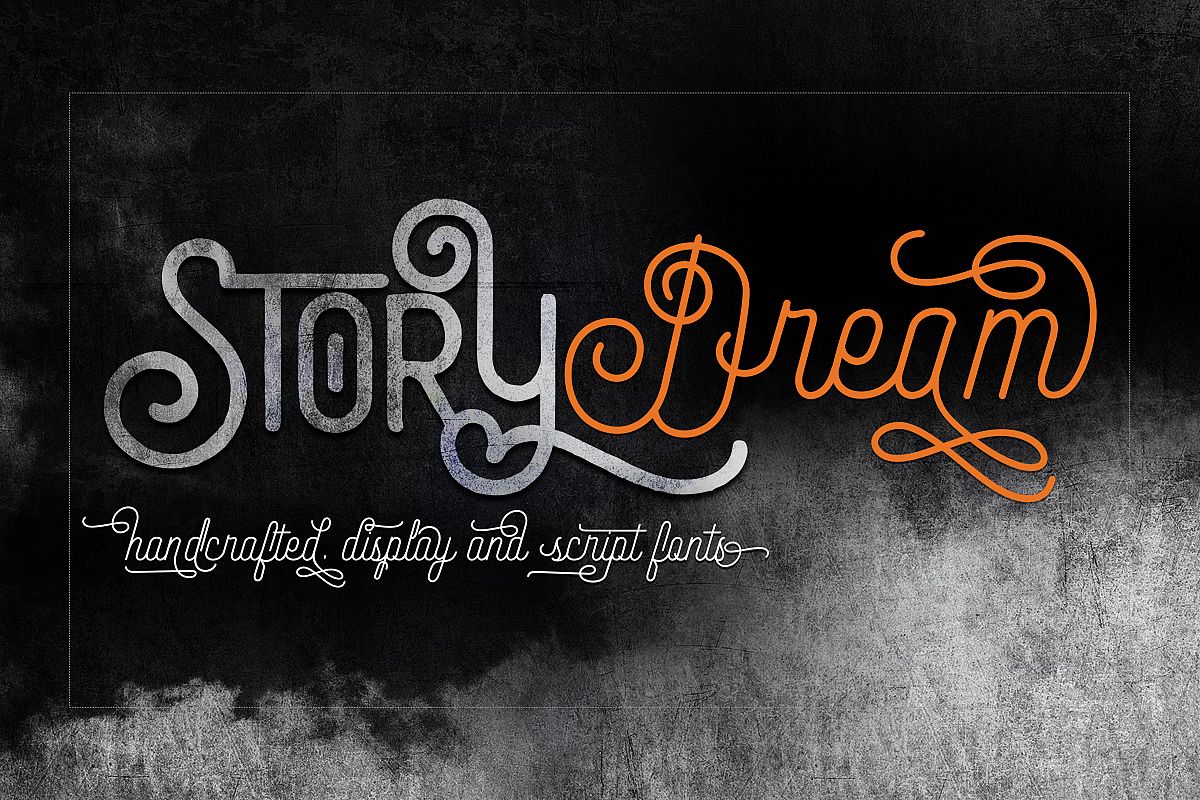
Story Dream, Script & Display
Story Dream Scrip
Story Dream
Introducing
Handcrafted, display and script typeface
Story Dream 2 typefaces + Ornament
Are two typefaces of letters handcrafted, script and Display, very
beautifully unique and modern, solution your next design, suitable for
the needs of: screen printing t-shirt, logo, branding, trademark,
greeting cards, flayer, posters, invitations, magazine titles and etc ,
Story Dream script to have 484 Glyph with features, standard ligatures, Swash, Titling, stylistic sets, stylistic Alternates, Initial,
Dream Story Display 300 Glyph with Feature, standard ligatures, discretionary ligatures, stylistic sets and swashes.